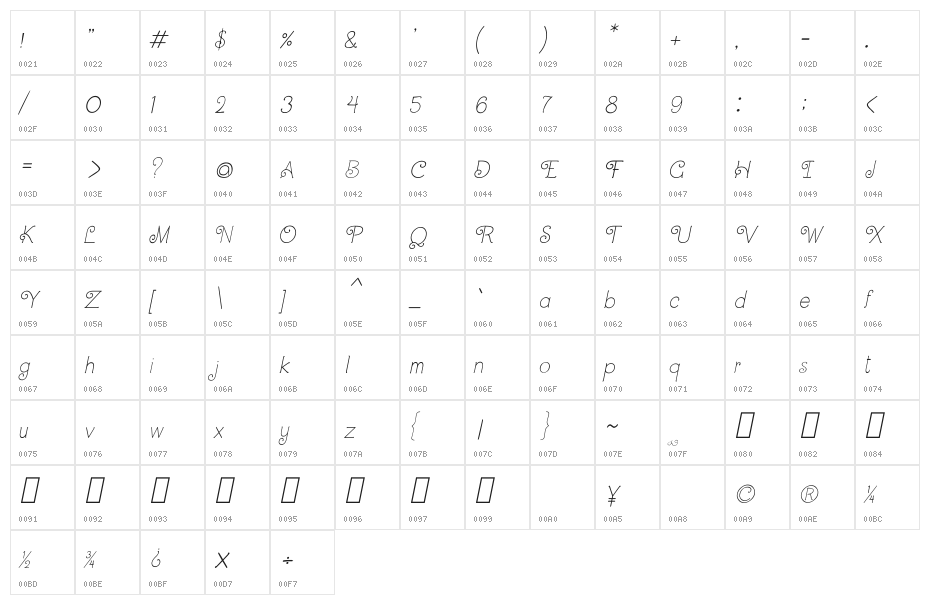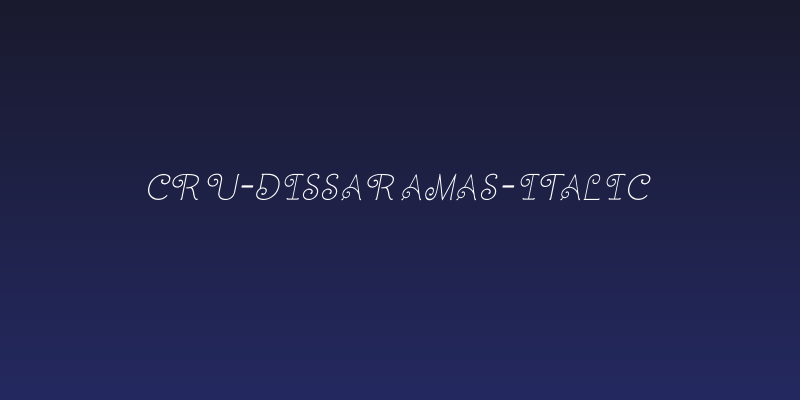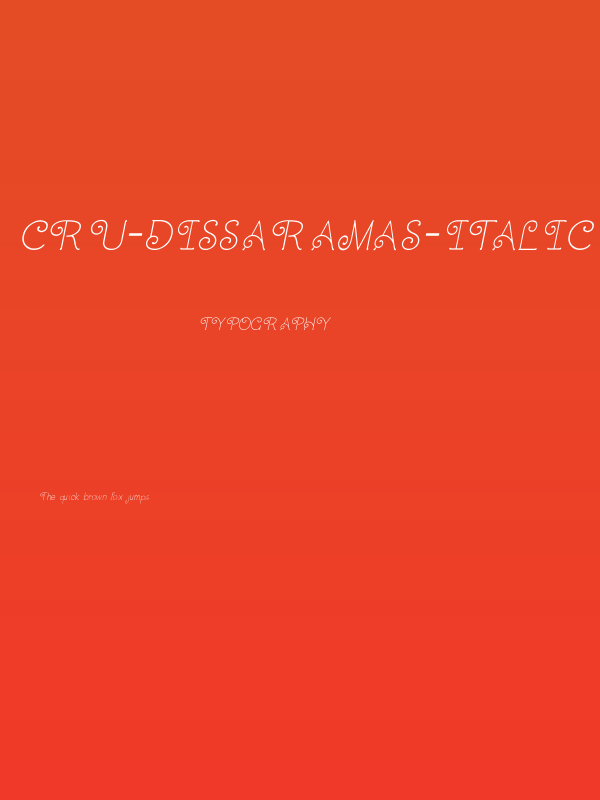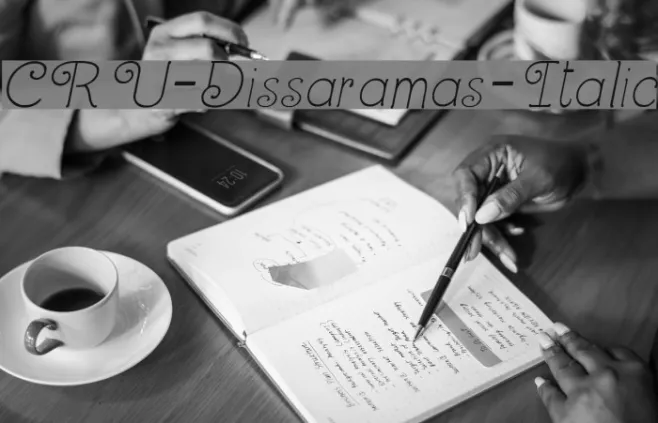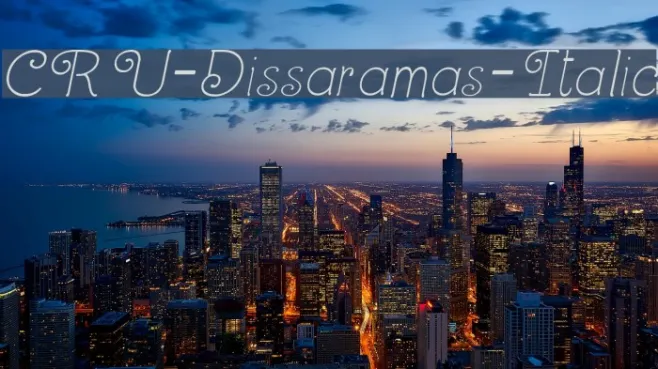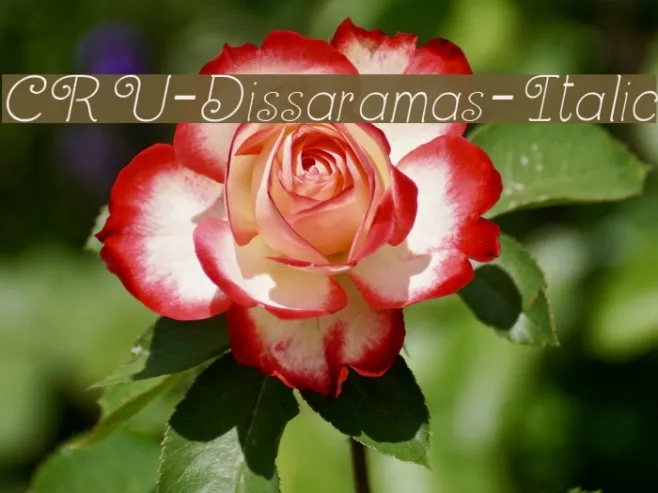
CRU-Dissaramas-Italic Font
CRU-Dissaramas-Italic Description
This elegant script font features a flowing, cursive style with intricate swirls and loops that add a touch of sophistication. The uppercase letters are particularly ornate, with decorative flourishes that enhance their visual appeal. The lowercase letters maintain a consistent style, offering a smooth and connected appearance that mimics natural handwriting. The numbers and special characters are designed to match the overall aesthetic, ensuring a cohesive look across all text elements. This font is ideal for projects that require a personal, artistic touch, such as invitations, greeting cards, or branding materials.